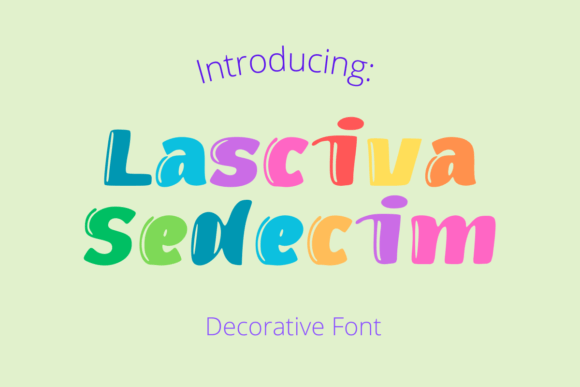
Delve into the enchanting world of Lasciva Sedecim, a decorative font family that exudes a timeless retro aesthetic, reminiscent of the vibrant 80s era. Created by the visionary Sparkylicious, this font captivates with its nostalgic charm, evoking memories of arcade games, vibrant album covers, and iconic designs that defined a generation.
With Lasciva Sedecim, you hold the key to unlocking a world of creative possibilities. Unleash your imagination as you craft captivating retro gaming graphics, mesmerizing album covers, alluring logos, and eye-catching social media posts infused with a vintage soul. Let Lasciva Sedecim transport your designs to a bygone era, where pixels danced and neon lights illuminated the night.
Beyond its retro appeal, Lasciva Sedecim offers versatility that knows no bounds. Its distinctive characters dance harmoniously across screens, effortlessly enhancing websites, blogs, posters, and flyers with an undeniable retro charm. This font family is a true chameleon, adapting seamlessly to various mediums, ensuring your designs shine in any context.